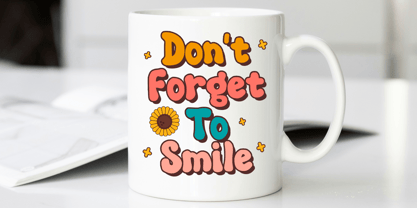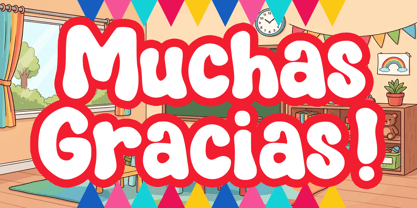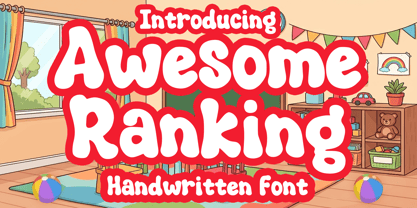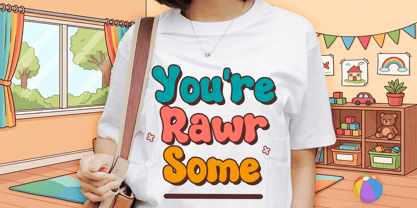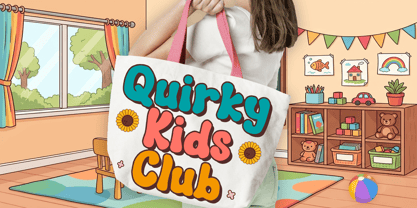
Awesome Ranking
The Awesome Ranking Font Family was designed by Gabriel Valentinus and published by Mvmet. Awesome Ranking contains 1 styles. More about this family
Introducing Awesome Ranking, a whimsical and enjoyable display font that elevates any design project with its unique style and originality. This dynamic font is perfect for a variety of creative ventures, including educational assignments, eye-catching sticker designs, trendy apparel graphics, impactful logo creations, engaging magazine or book covers, and whimsically illustrated comics or cartoons. Whether you're handling everyday typing tasks or aiming to enhance your distinctive designs, Awesome Ranking consistently adds a cool, fun flair to your creative work. Experience how this extraordinary font transforms the ordinary into the extraordinary!
Designers: Gabriel Valentinus
Foundry: Mvmet